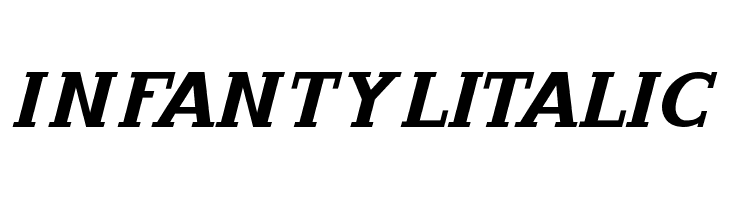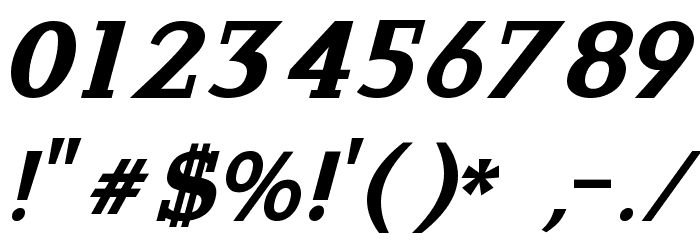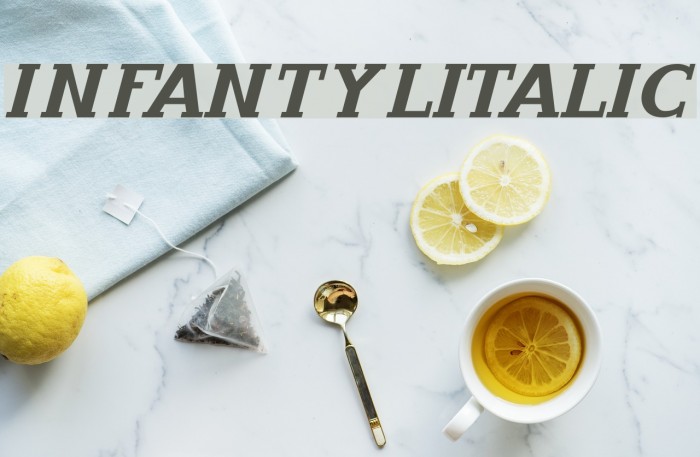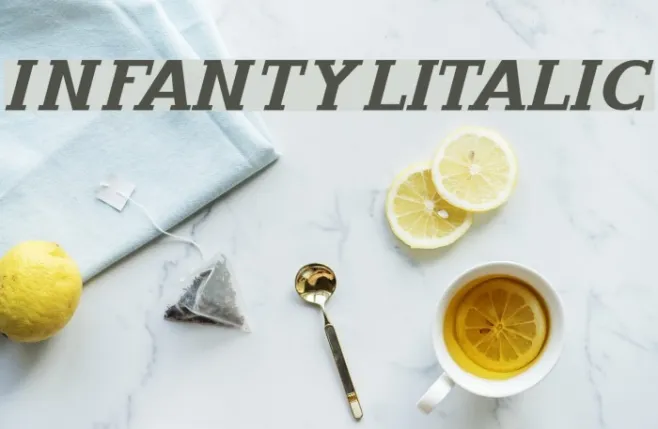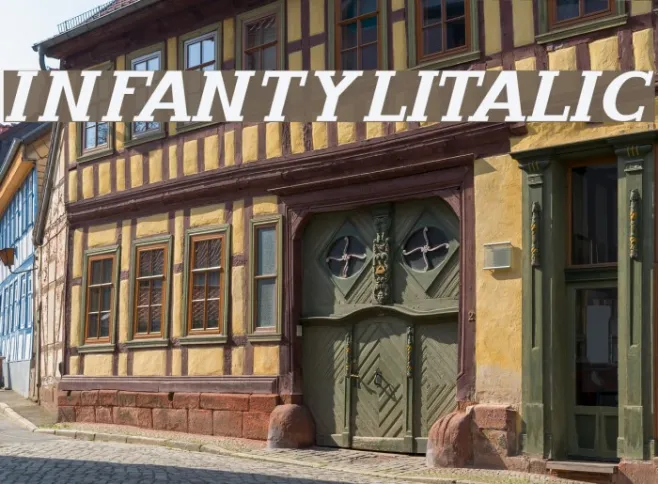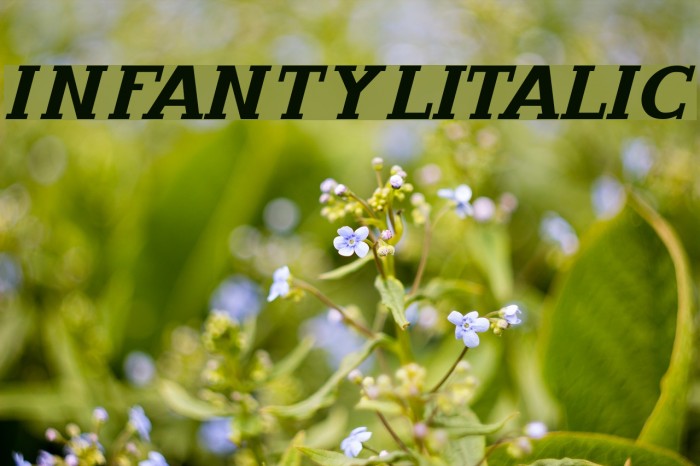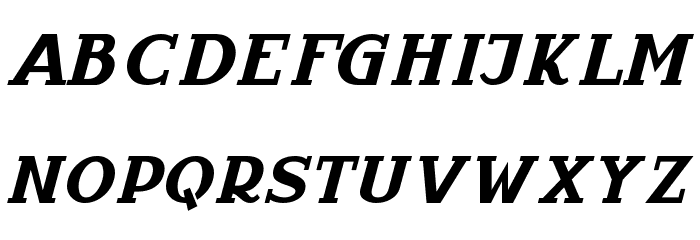
InfantylItalic Font
InfantylItalic Description
This typeface features a dynamic and playful italic style, characterized by its slanted, cursive-like appearance. The strokes are bold and confident, with a consistent thickness that gives the font a strong presence. The characters are well-defined, with a slight flair at the ends of strokes, adding a touch of elegance. The numerals and special characters maintain the same stylistic approach, ensuring uniformity across all elements. This font exudes a sense of movement and energy, making it suitable for projects that require a lively and engaging aesthetic.
| Proposed Projects | Ideal for branding, advertising, and editorial design where a lively and engaging typeface is desired. |